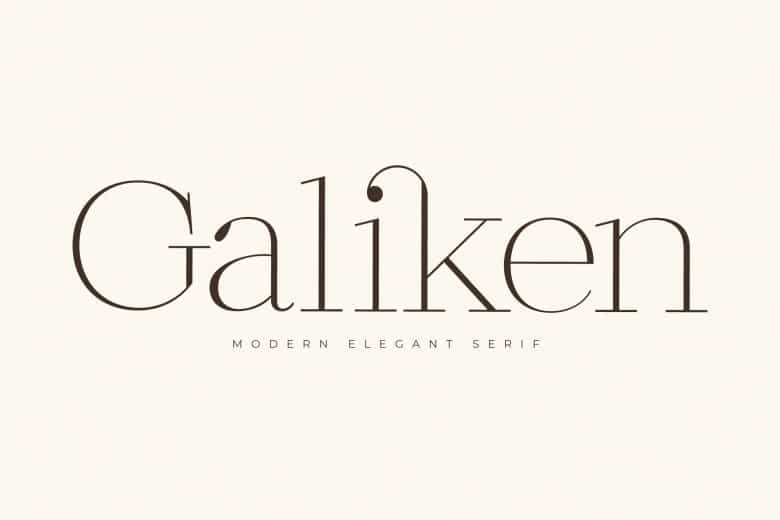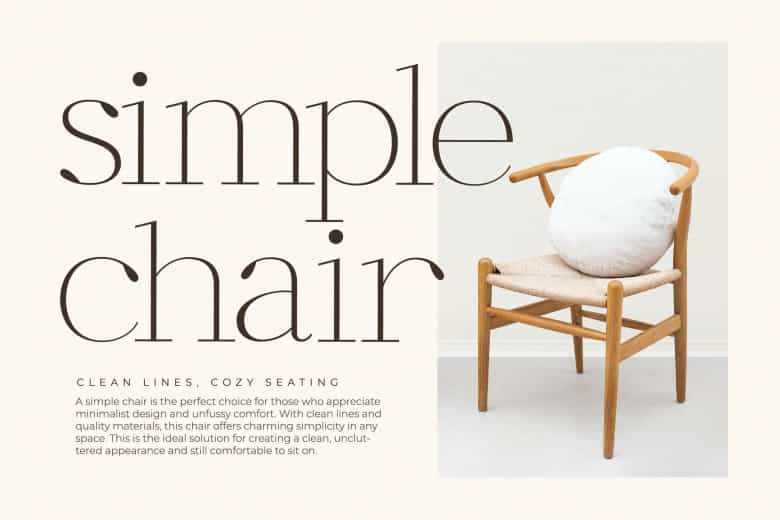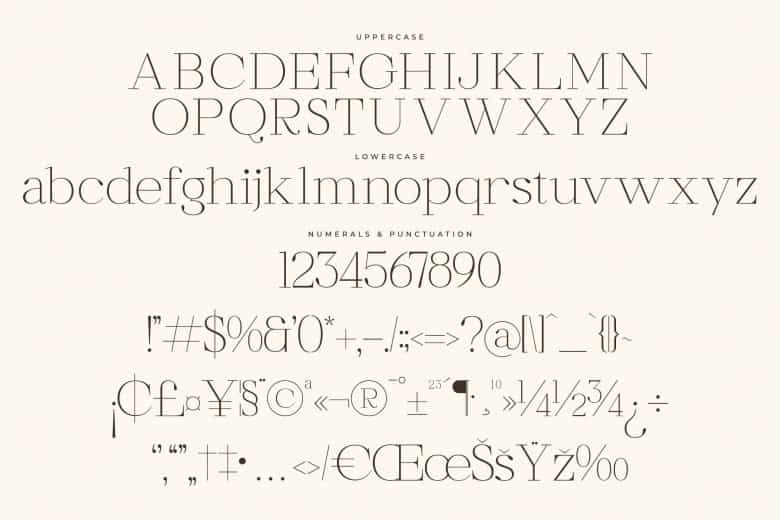
Galiken is a contemporary serif typeface which exudes sophistication and fashion. With clean lines and balanced proportions, this typeface makes an impactful statement both print and digital designs alike. Galiken adds timeless elegance and allure that will take any design project from editorial layouts to branding materials in its wake.